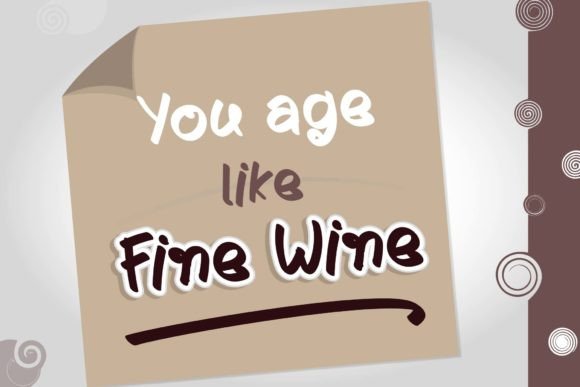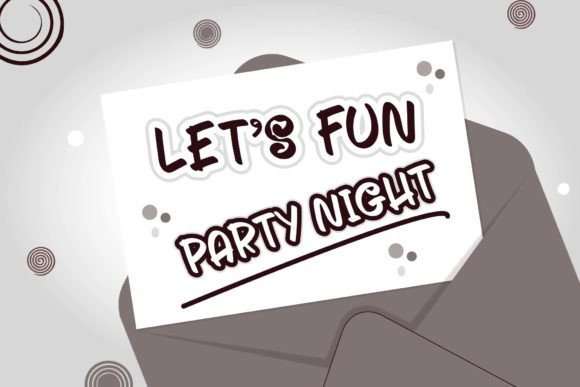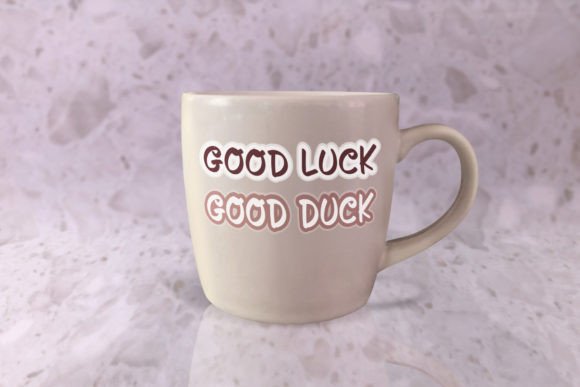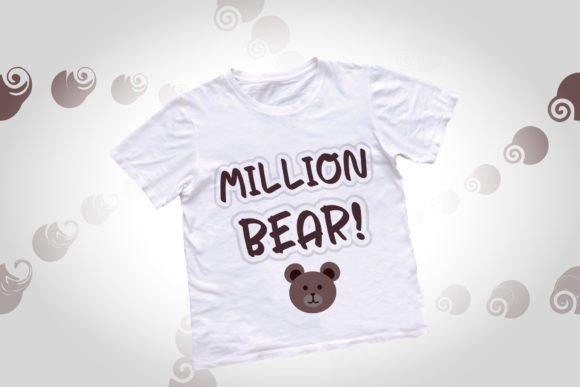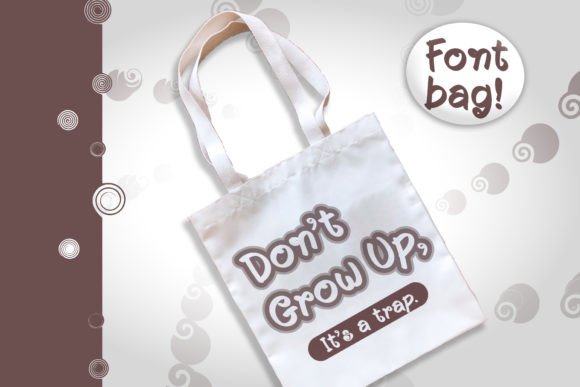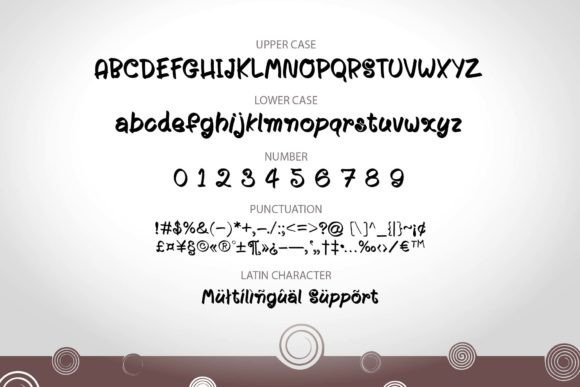
The Gothic Font: A Playful and Stylish Addition to Your Design Arsenal
I’ll never forget the time I was working on a branding project for a trendy boutique, and I just couldn’t find the right font to capture their youthful and stylish vibe. That was until I stumbled upon the Gothic font. It was love at first sight! ✨ With its playful and stylish feel, it perfectly embodied the spirit of the brand. In this article, I’ll share my experience with the Gothic font, its features, and how to make the most of it in your designs.
- ✅ Versatility: Gothic is suitable for both professional-looking projects like branding designs, labels, websites, and business cards, as well as casual designs like packaging, posters, flyers, quotes, social media posts, invitations, and special occasions cards.
- ✅ Unique Character: The font has a distinct personality that sets it apart from other fonts. Its playful and stylish feel makes it perfect for designs that require a youthful touch.
- ✅ Easy to Read: Despite its playful nature, the Gothic font is surprisingly easy to read, making it suitable for body text and headlines.
While the Gothic font is an excellent addition to any design project, there are a few things to keep in mind: 🤔
- ⚠️ Legibility at Small Sizes: While the font is generally easy to read, it may become less legible at very small sizes (below 10pt). It’s best to use it at larger sizes or for display purposes.
- ⚠️ Overuse: As with any font, using Gothic excessively can make your design look monotonous. Make sure to balance it with other fonts or design elements.
The Backstory of Gothic Font
The Gothic font was designed with the intention of creating a playful and stylish font that captures the spirit of modern design. While the designer behind the font remains anonymous, it’s clear that their goal was to create a font that’s both fun and versatile. 💡
Q: What type of projects is the Gothic font suitable for?
A: The Gothic font is suitable for a wide range of projects, including branding designs, labels, websites, business cards, packaging, posters, flyers, quotes, social media posts, invitations, and special occasions cards.
Q: Is the Gothic font easy to read?
A: Yes, despite its playful nature, the Gothic font is surprisingly easy to read, making it suitable for body text and headlines.
Q: Can I use the Gothic font in combination with other fonts?
A: Absolutely! The Gothic font pairs well with a range of fonts, from serif and sans-serif fonts to script and display fonts. Experiment with different font combinations to find the perfect look for your design.